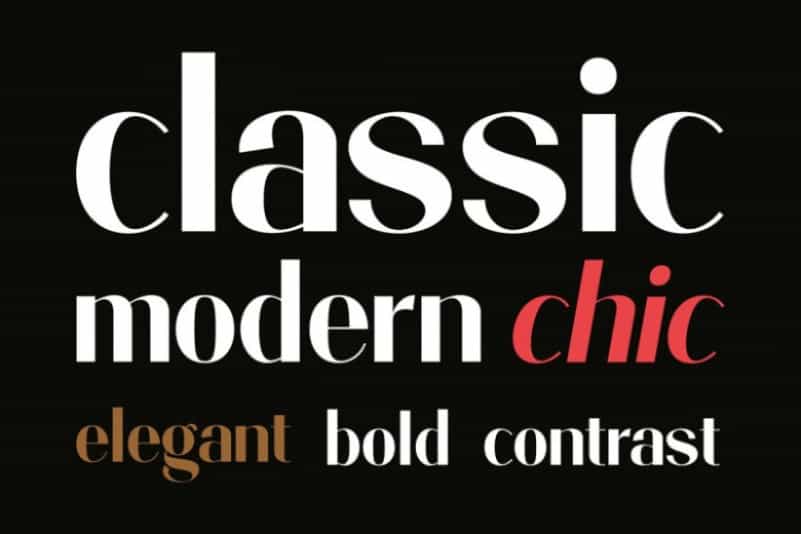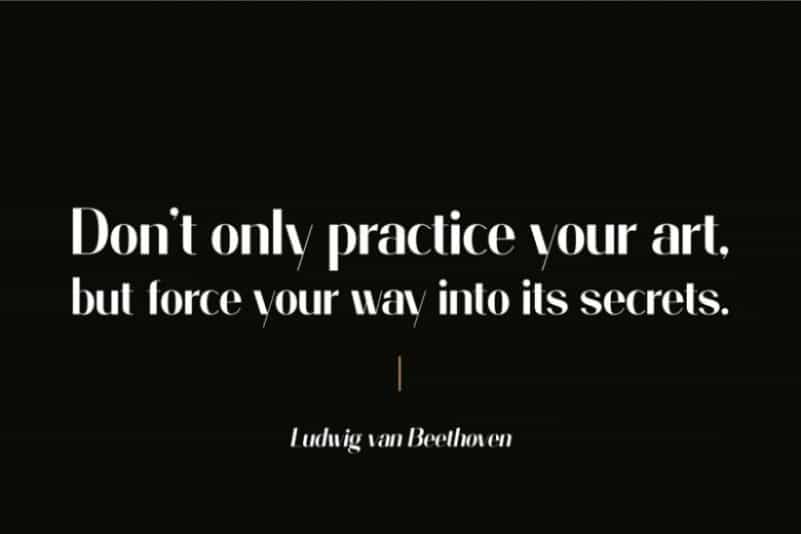
Prague Font is very beautiful and classy display font. Building on the aesthetics of the city, Prague is intended to be one of the sophisticated display font. It has clean and contrast, bold and chic: the overall appearance is professional and sleek.